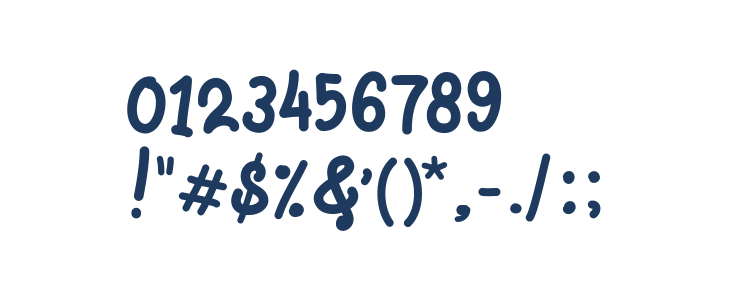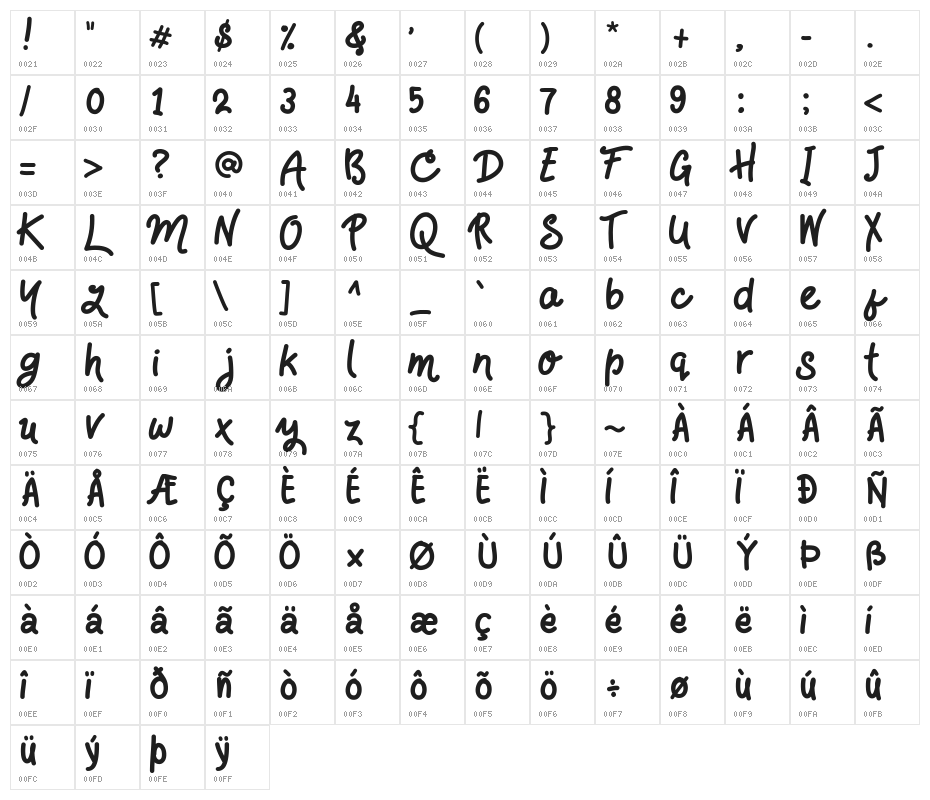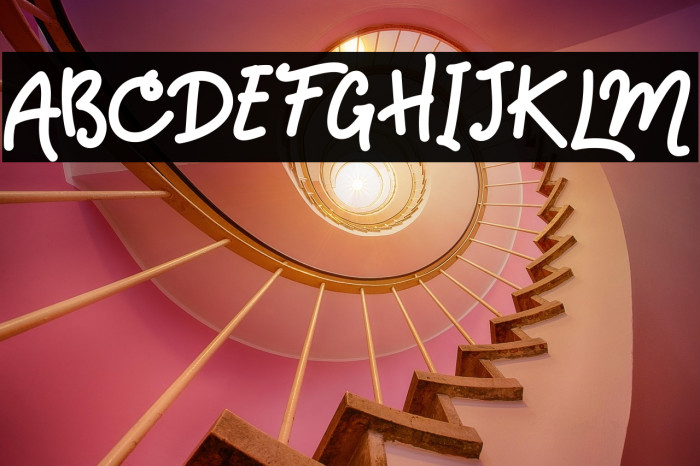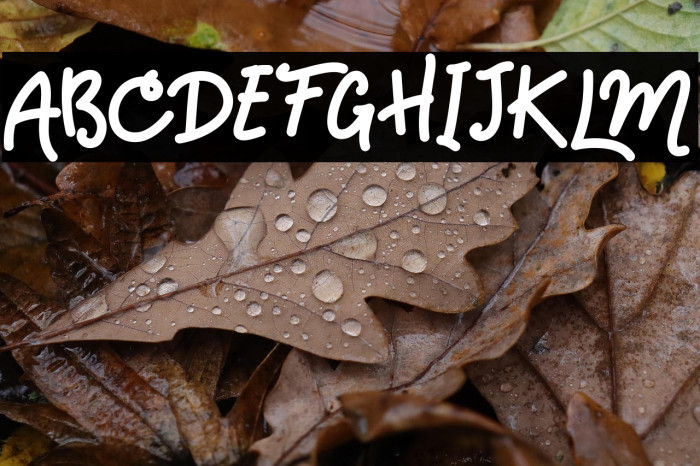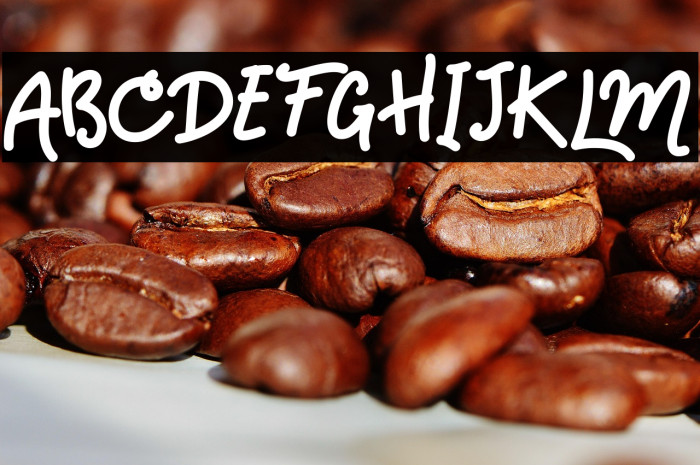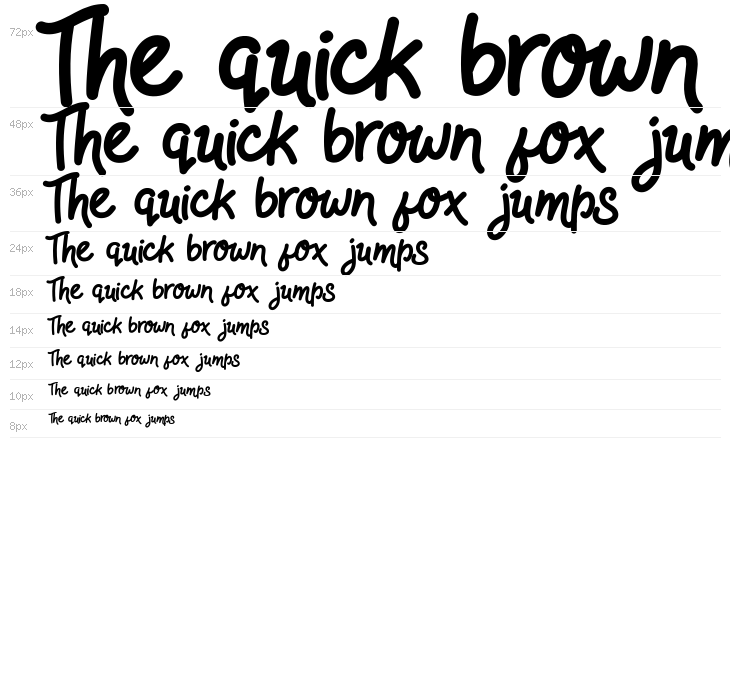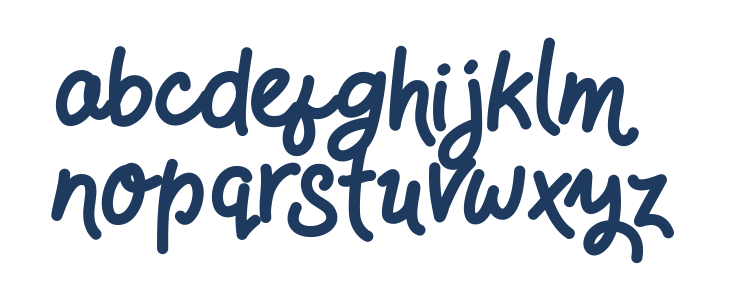
HandsDown Font
HandsDown Description
This font features a playful and energetic handwritten style, characterized by its bold, flowing strokes and dynamic curves. The letters are slightly slanted, giving a sense of movement and spontaneity. The uppercase and lowercase letters maintain a consistent style, with rounded edges and a casual feel. The numbers and special characters are equally expressive, matching the lively aesthetic of the alphabet. This font exudes a friendly and approachable vibe, making it suitable for creative and informal projects.
| Proposed Projects | Ideal for greeting cards, playful branding, children's books, and social media graphics. |